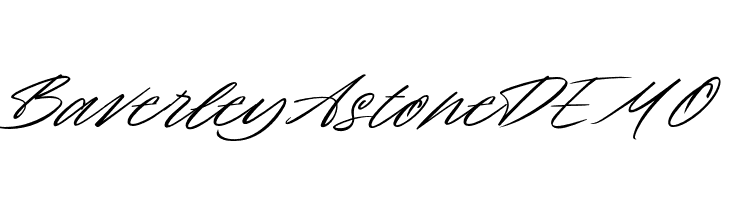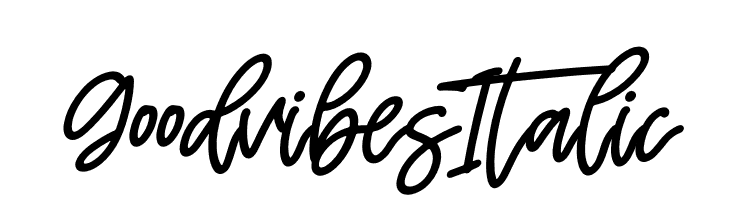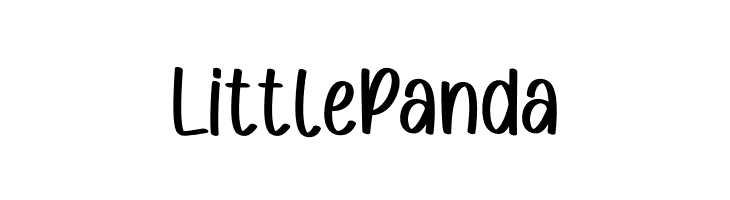
An elegant, flowing script font with graceful cursive strokes.
A bold, dynamic script font with fluid, connected letterforms.
A modern and decorative font with dynamic strokes and artistic flair.
A whimsical, vine-adorned font with a hand-drawn, artistic style.
A futuristic, geometric font with angular, bold characters.
A bold, playful handwritten font with smooth curves and thick strokes.
An elegant, decorative script font with outlined, swirling characters.
A modern, italicized font with a halftone effect, perfect for dynamic and futuristic designs.
A bold, wavy font with a playful, distorted style ideal for dynamic designs.
A playful, rounded font with a retro vibe and uniform stroke width.
设计师偏爱 Strongela Delmonte Italic, Clarkton, Lovely Orange, Fh_Euphoria and ADAPT,因为其造型干净、适用范围广—— 从品牌识别到落地页、海报都能胜任。